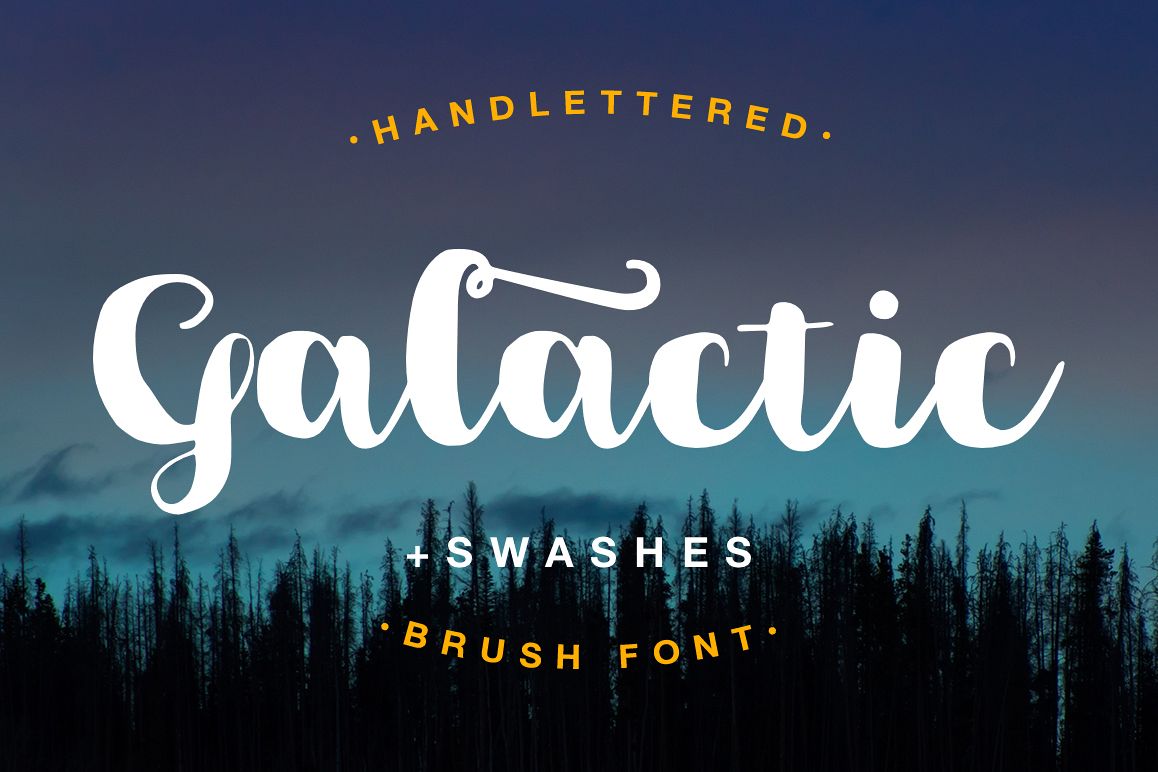
Galactic Brush Font
Galactic-Regular
Galactic Brush Font
It's a sweet hand lettered font. Also with this type, you will see a lot of interesting extras. This brush font is ideal for branding and decorate your any project.You can create perfect and unique design of your wedding postcard, logo, blog, stationery, marketing, magazines and moreWhat you get?
• Galactic Script
• Alternates